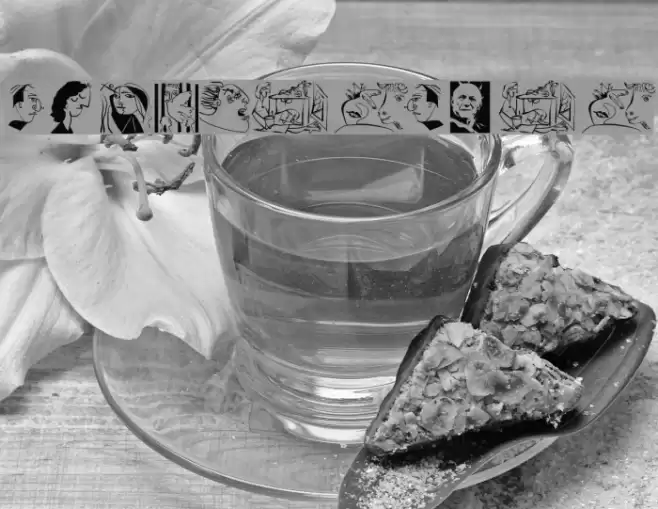
Pabloesques Font
Pabloesques Description
This is not a traditional font but rather a collection of artistic illustrations inspired by a famous artist's style. Each character is represented by a unique drawing, capturing abstract and cubist elements. The images are intricate, with bold lines and expressive forms, reflecting a modernist approach. The set includes a variety of subjects, from human faces to animals, each rendered in a distinctive, stylized manner. The overall appearance is more of an art piece than a functional typeface, making it suitable for creative and decorative purposes.
An artistic collection of illustrations inspired by a modernist style, not a traditional font from Uncategorized fonts.
- Proposed Projects: Ideal for art projects, creative posters, and decorative designs where a unique visual impact is desired.
- Overall Style: Modern, Artistic
- Use Case: Decorative designs, Art projects